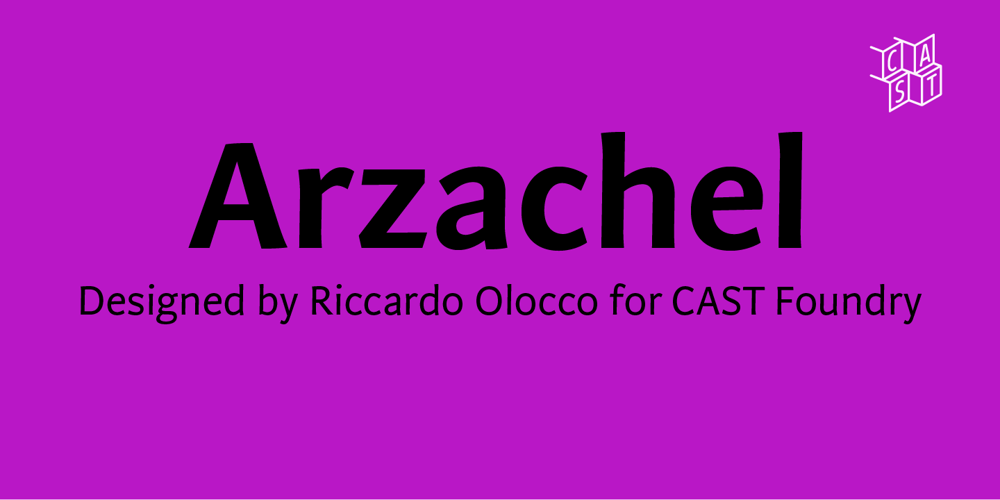
Arzachel Font Family was designed by Riccardo Olocco and published by CAST. Arzachel contains 8 styles and family package options. Arzachel is a humanistic sanserif with a big x-height and a specific organic look. Its design is scientifically sharp and efficient in small type sizes as well as rugged and dramatic in headlines. Arzachel’s essential feeling comes from several features: all the letters are slightly sloped, stem terminations are flared at the top, and the terminals in letters a, c, e, f… are widening with the inside parts completely flat. The stroke contrast is low in the regular weight while it increases in the black; finally the capitals have an inscriptional flavor. Despite being a sanserif (thus a product of recent typography) Arzachel’s roots stretch back to the Renaissance tradition: Olocco took inspiration from some of the early and rather weird types cut in Venice in the 15th century. Arzachel was conceived during Olocco’s MA in Reading to provide a companion for his Zenon for use in small type sizes. But instead of expanding the Zenon family with optical sizes, the designer decided on a sans with its own personality rather than a sanserif version of Zenon with chopped-off serifs.